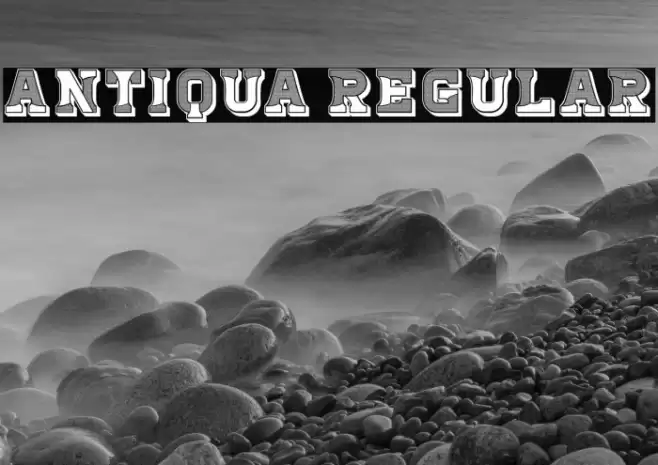
Antiqua Regular Font
Antiqua Regular Description
This font features a bold, decorative style with a three-dimensional effect achieved through shading and outlines. The uppercase letters are designed with a strong presence, making them suitable for attention-grabbing headlines. The intricate detailing within each character adds a vintage flair, reminiscent of classic poster typography. The font's structure is robust, with consistent stroke widths that contribute to its bold appearance. The characters are evenly spaced, ensuring readability while maintaining the decorative elements that define its unique style.
A bold, decorative font with a vintage, three-dimensional effect from Uncategorized fonts.
- Font: Antiqua Regular
- Proposed Projects: Ideal for vintage posters, branding, and any project requiring a strong, decorative headline.
- Overall Style: Vintage